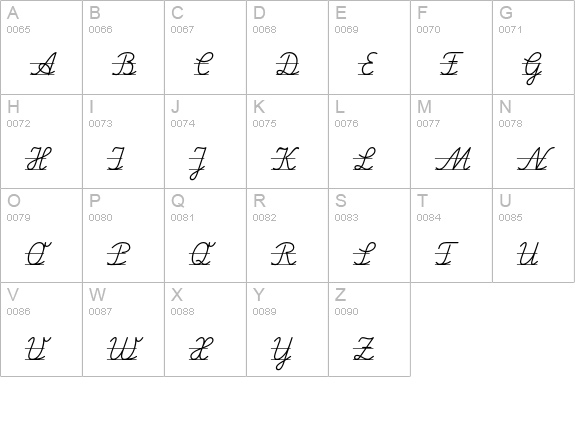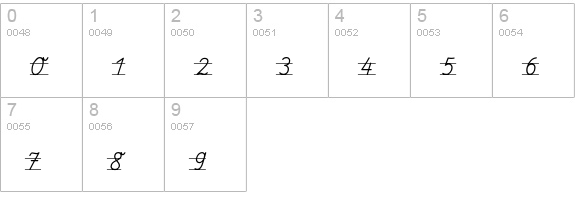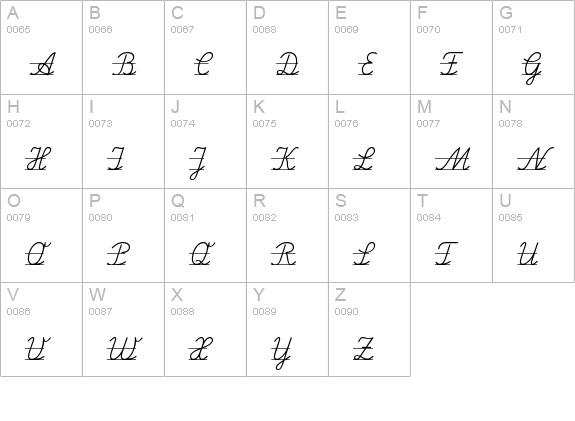
SchulschriftB-L2 Font Details
SchulschriftB-L2 is a beautifully crafted font that brings a touch of elegance and sophistication to any design project. This font is perfect for adding a unique and stylish flair to your work, whether it be for a logo, a branding project, or a headline on a website. The SchulschriftB-L2 font is characterized by its clean lines, smooth curves, and balanced proportions. It features a timeless look that is both modern and classic, making it versatile and suitable for a wide range of design styles. One of the standout features of SchulschriftB-L2 is its readability. The carefully designed letterforms ensure clear legibility, even at smaller sizes. This makes it ideal for use in body text or paragraphs where readability is crucial. Furthermore, SchulschriftB-L2 is available for free download at FontsMarket.com. This means that you can easily access and use this font in your projects without any additional cost. Whether you are a professional designer or a hobbyist, you can enjoy the benefits of this high-quality font without breaking the bank. With its exceptional design and accessibility, SchulschriftB-L2 is a font that is sure to elevate your design projects to new heights. Its versatility, readability, and availability make it a valuable asset for any creative endeavor. So why wait? Download SchulschriftB-L2 today and start creating stunning designs with ease.